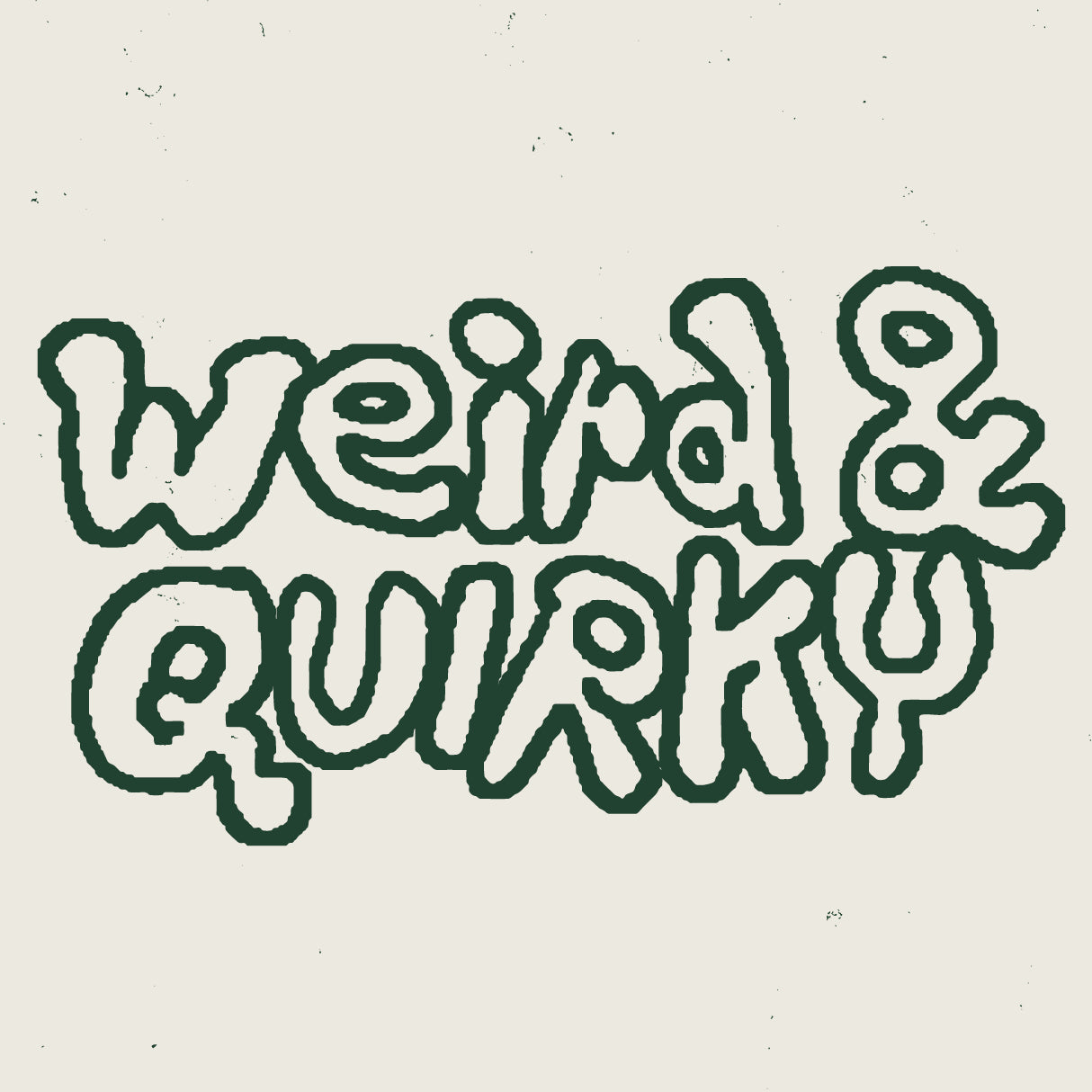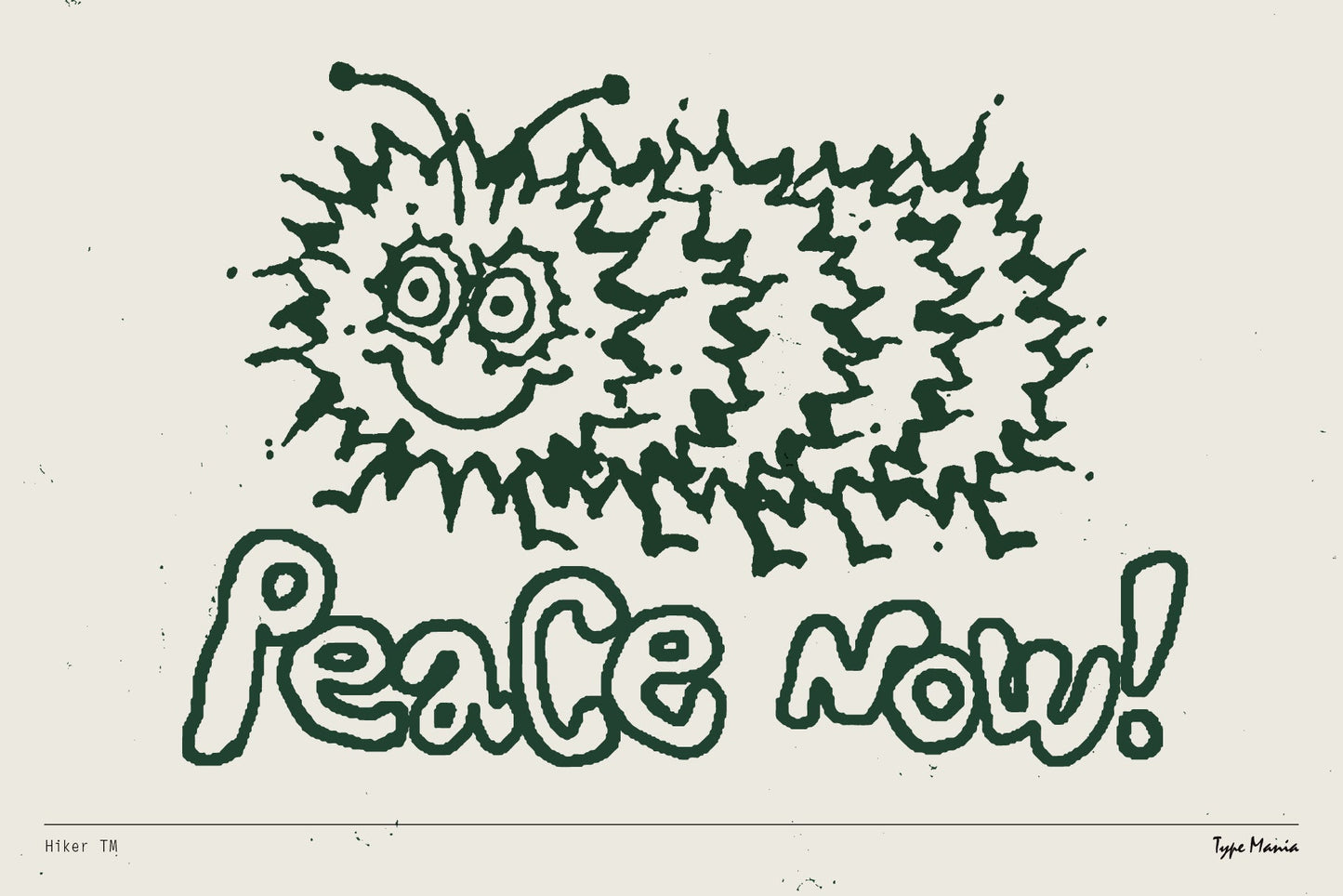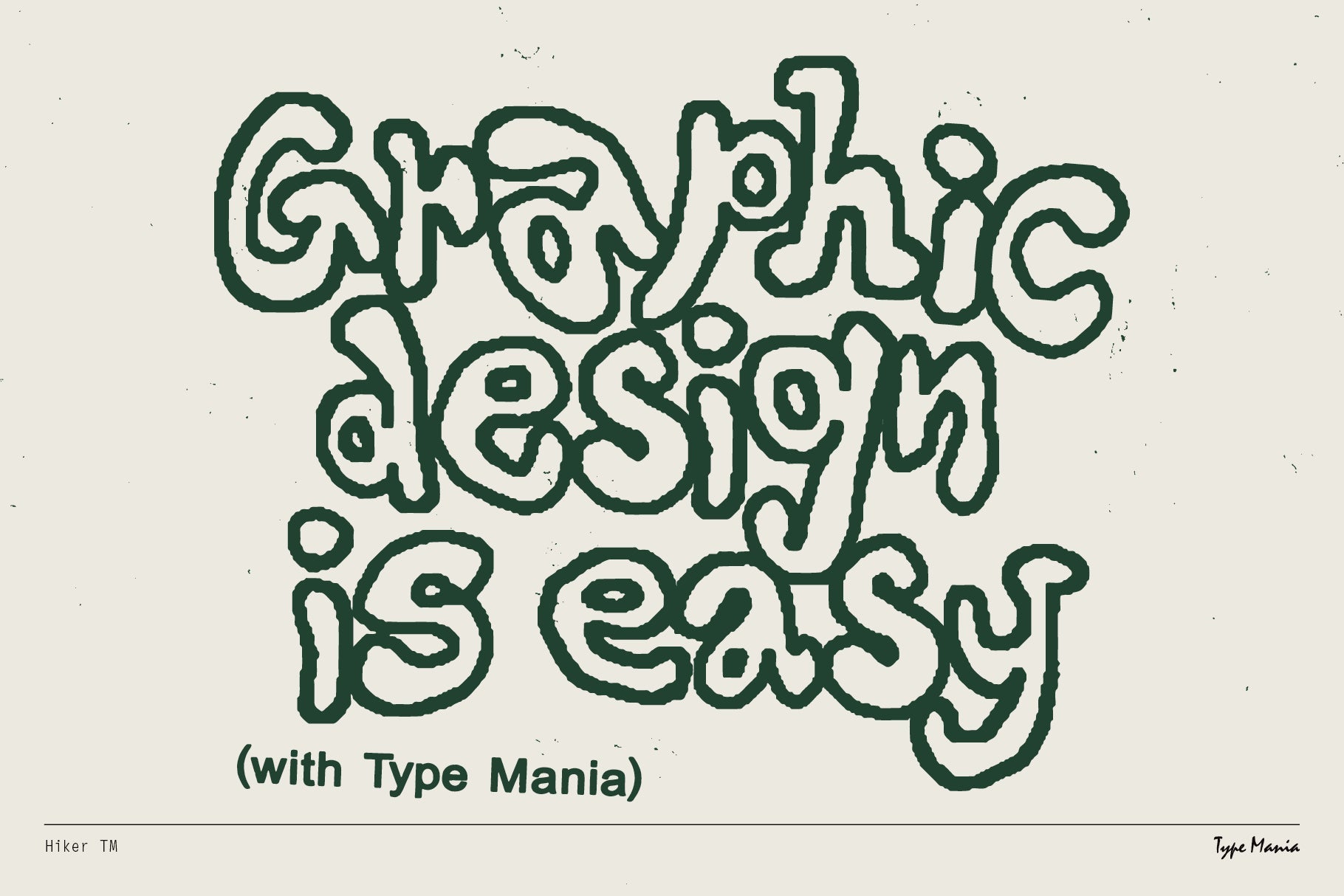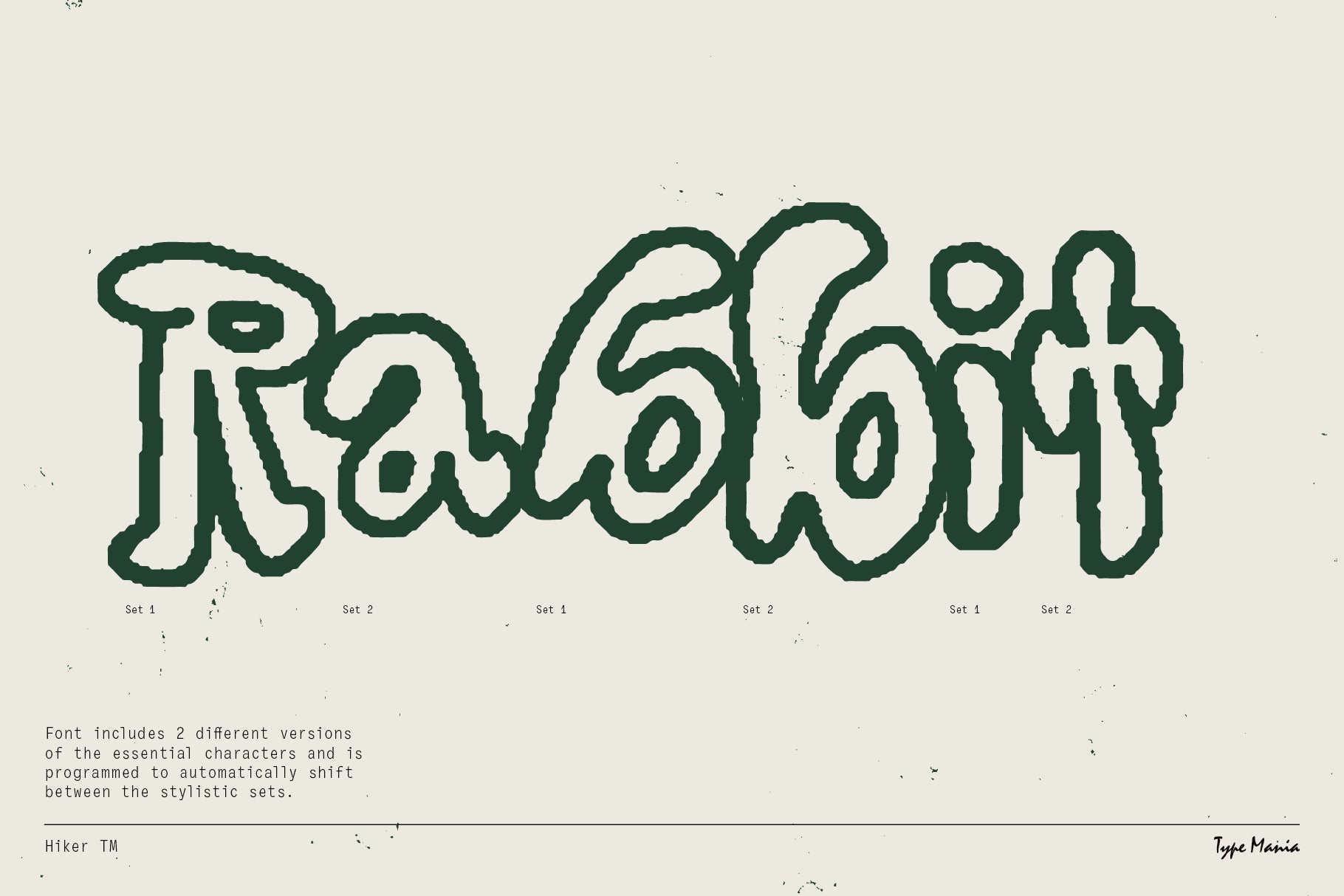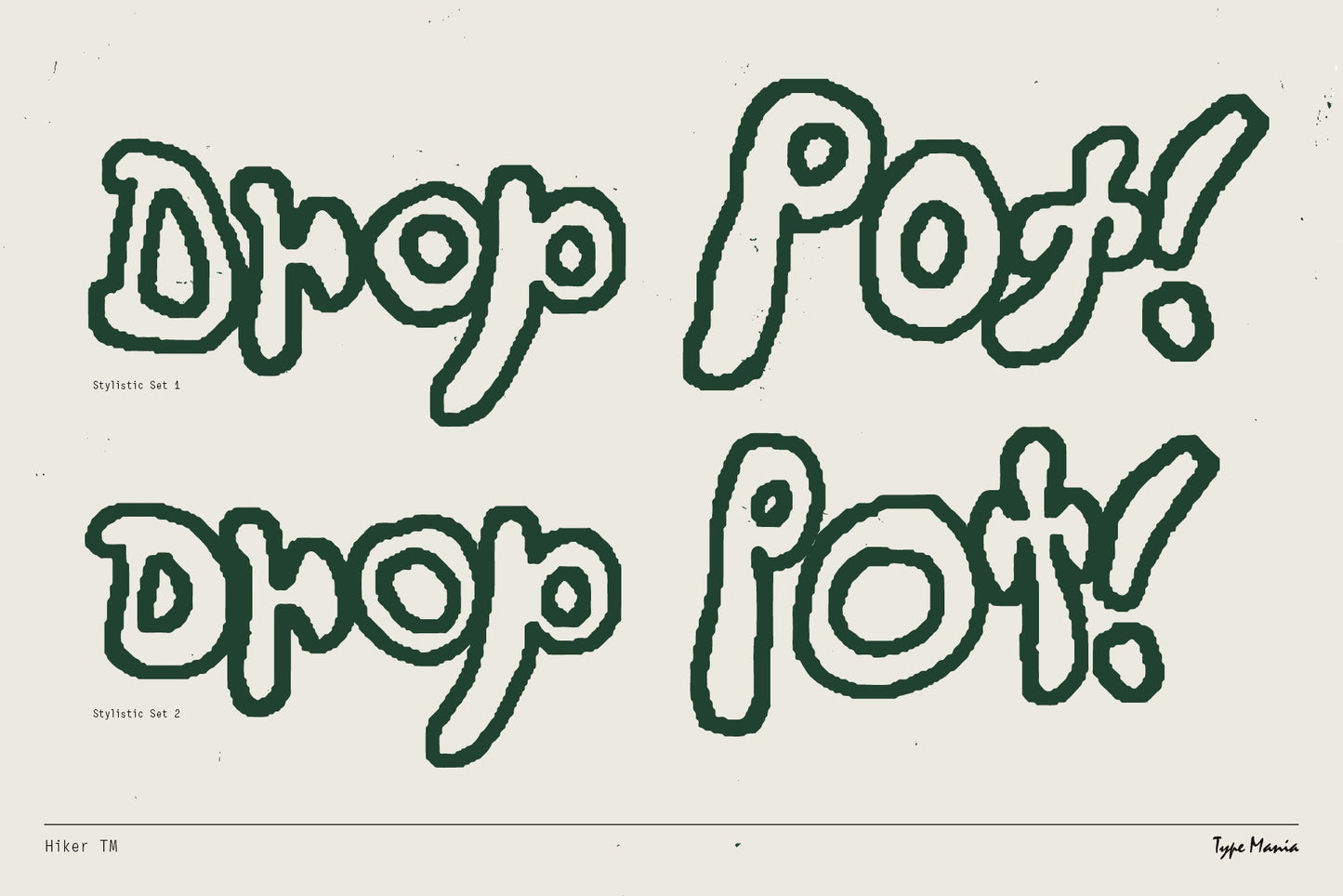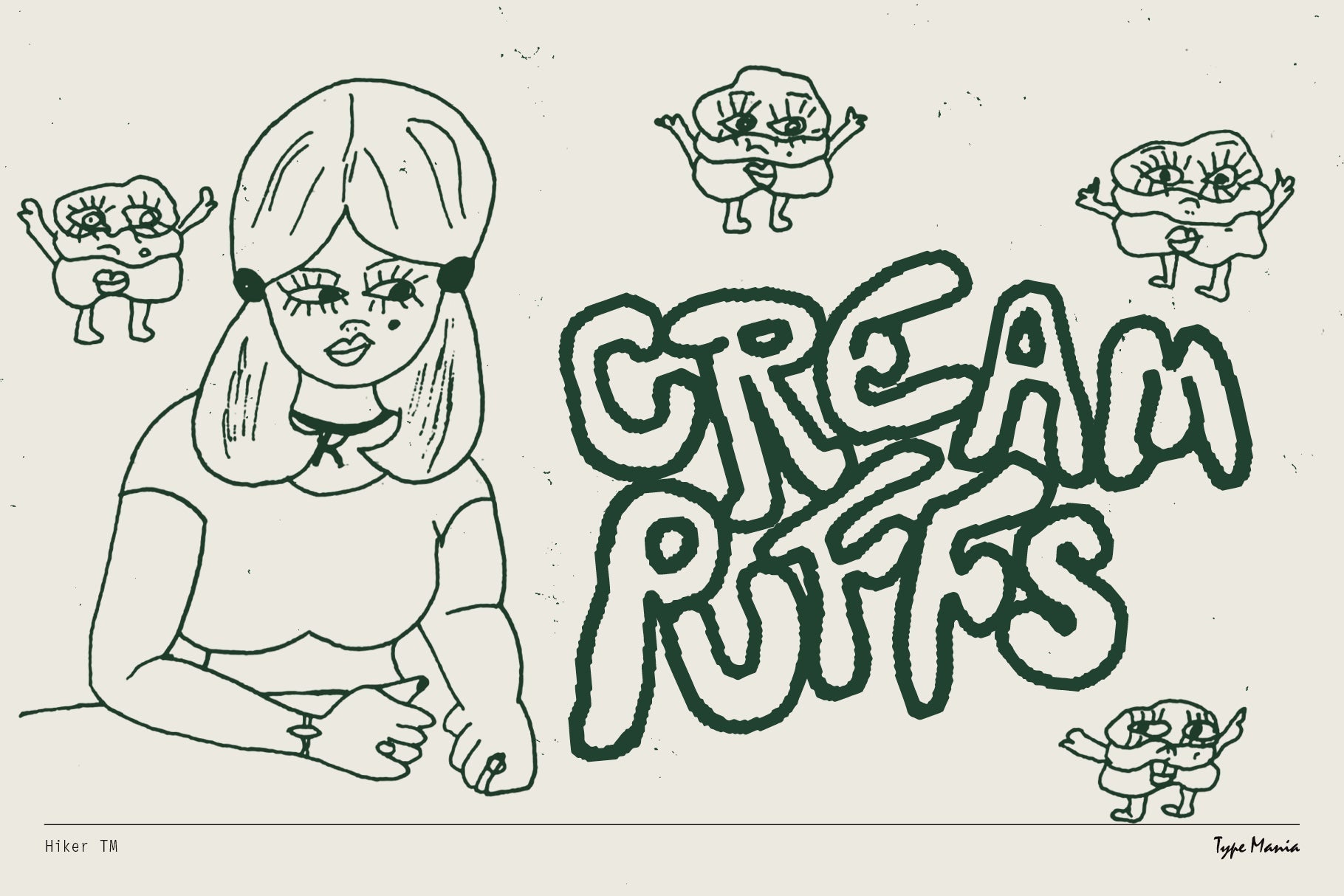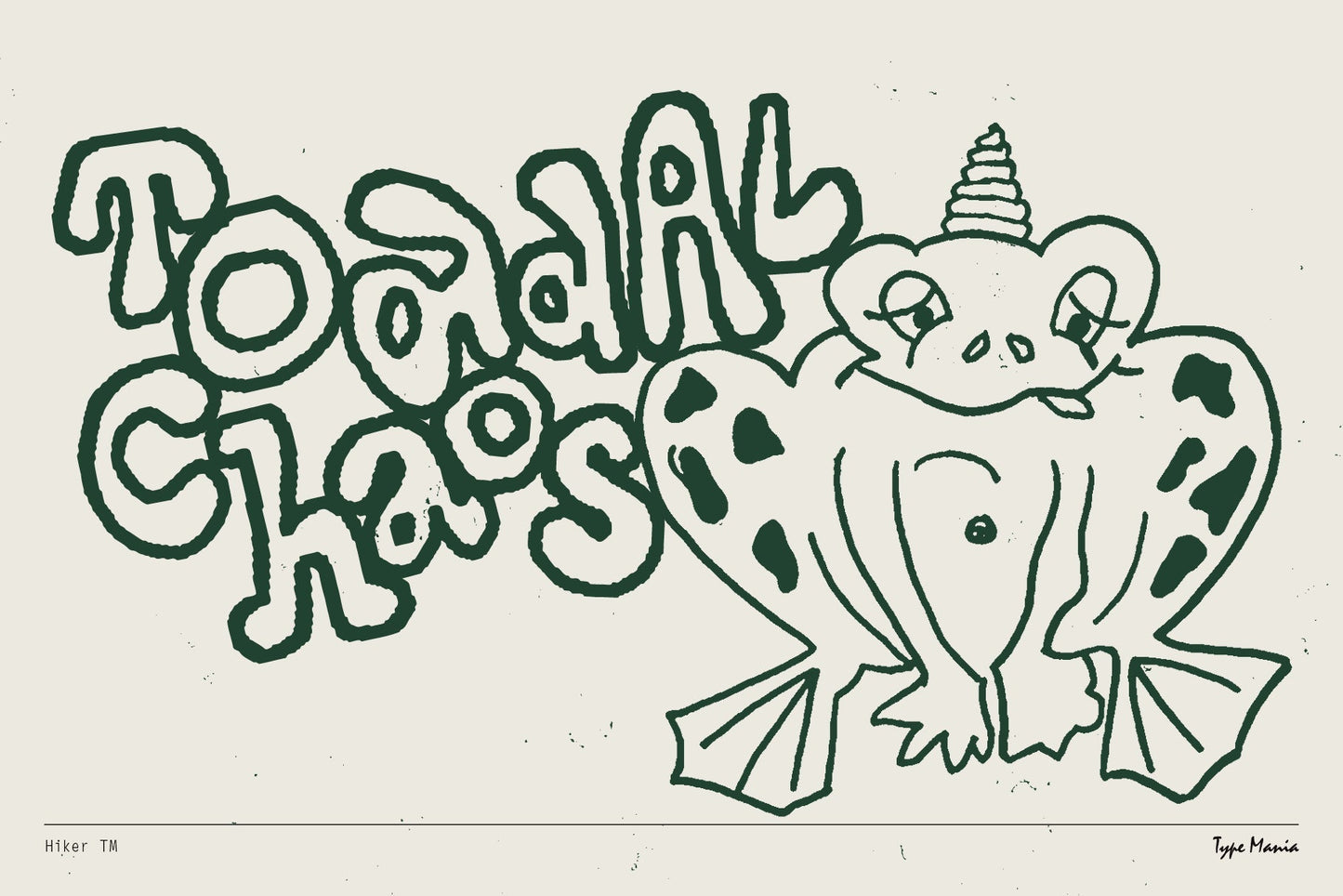
Hiker TM
Hiker TM is your go-to for unique and unconventional handwriting vibes. Operating on the more underground end of the spectrum, it's good for flyers, posters, branding, and campaigns – provided the client fits the aesthetic. Smoked out, loced out 🚬 Enjoy.
- 2 stylistic sets
- The font is programmed to automatically shift between the stylistic sets